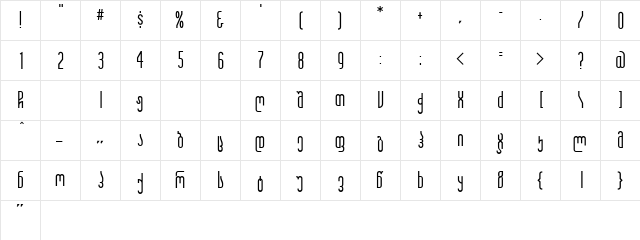
Institution Georgian Regular
Design Context for Institution Georgian Typeface
Institution Georgian is a composed and adaptable typeface that performs quietly and consistently across a wide range of design contexts.